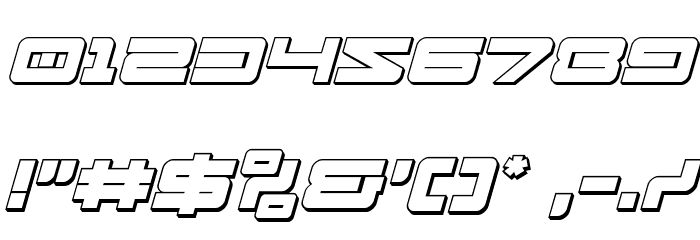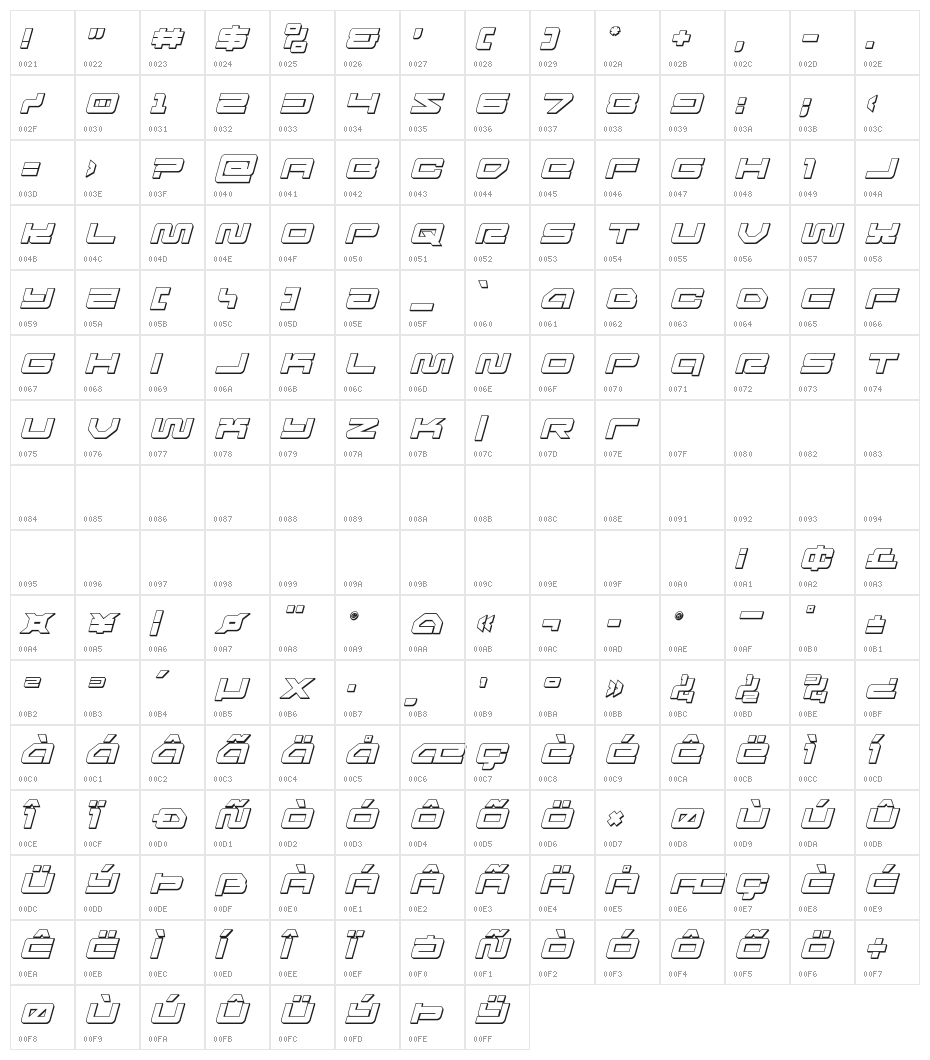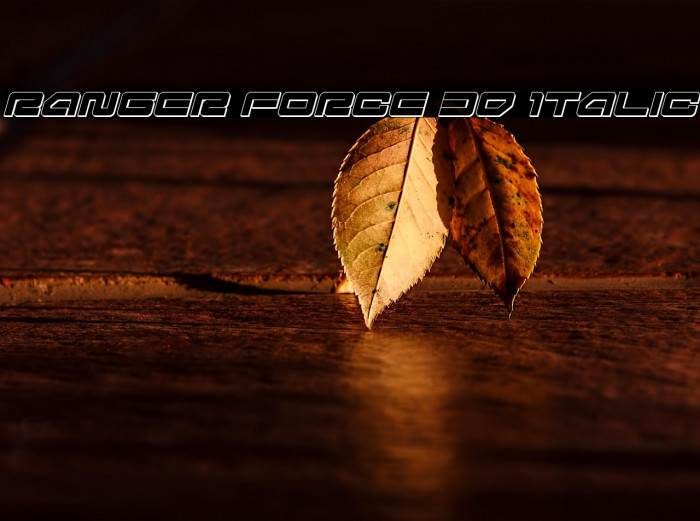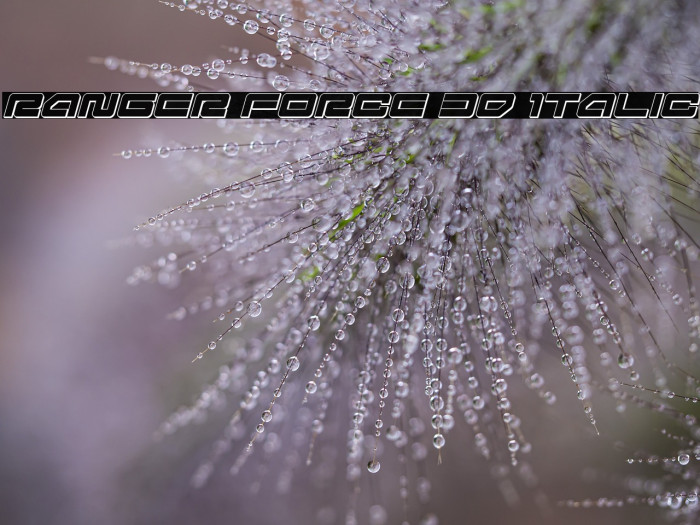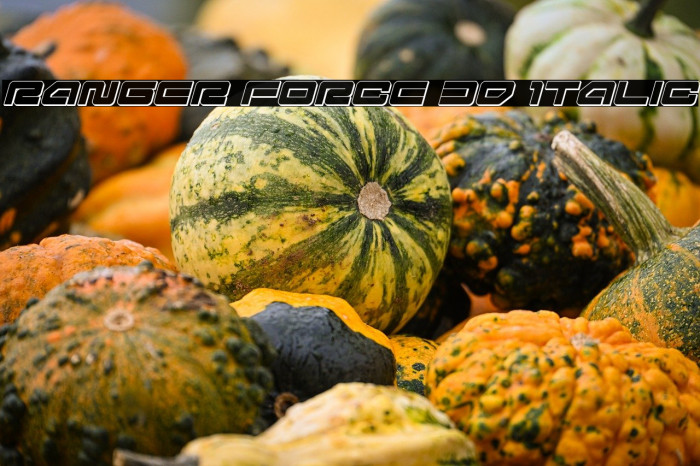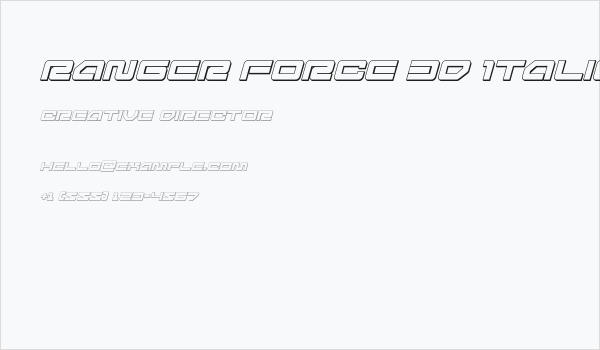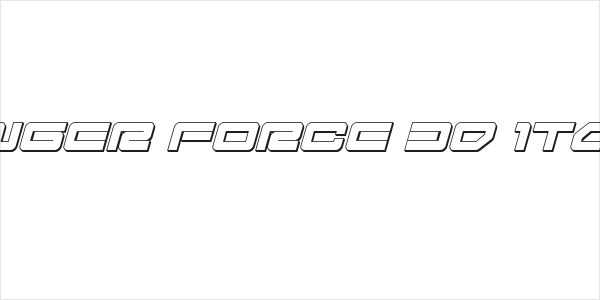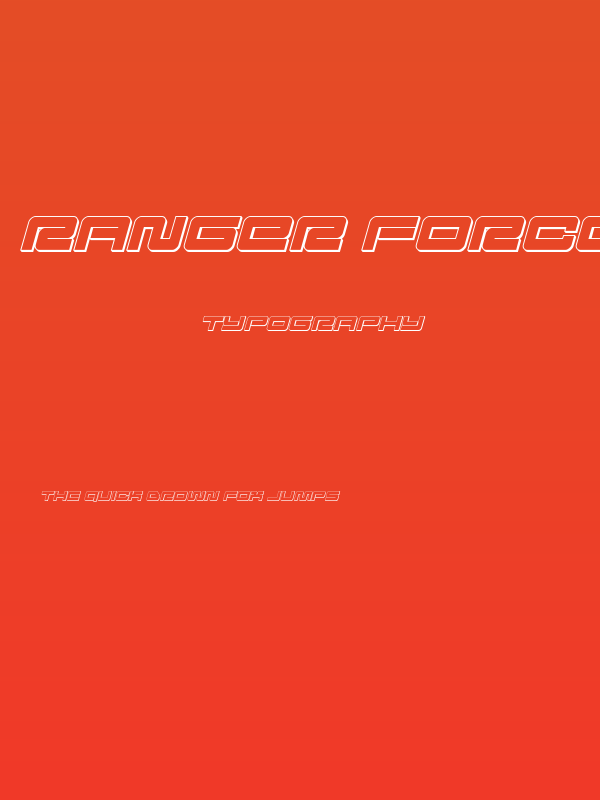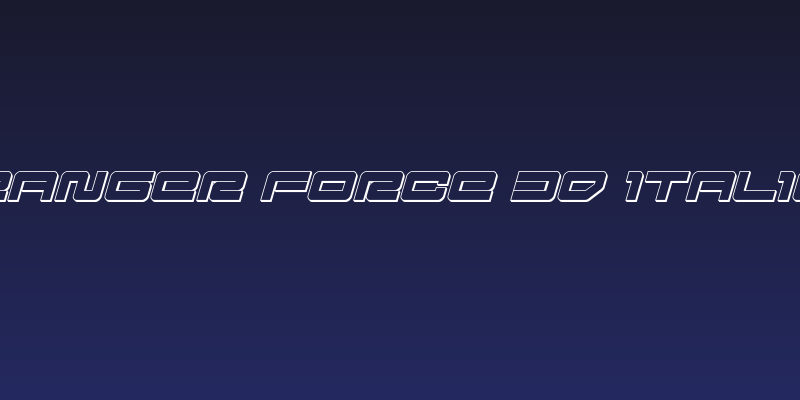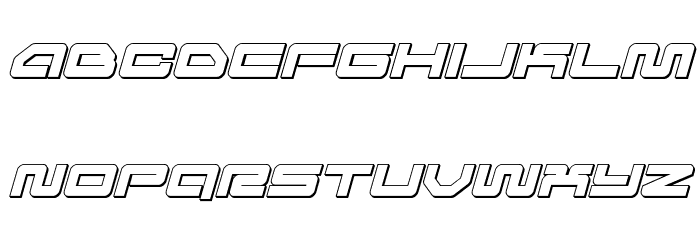
Ranger Force 3D Italic Font
Ranger Force 3D Italic Description
This font features a bold, futuristic design with a 3D effect that gives it a dynamic and modern appearance. The characters are outlined, creating a sense of depth and movement. The italicized style adds a forward-leaning, energetic feel, making it ideal for projects that require a sense of speed or innovation. The geometric shapes and clean lines contribute to its modern aesthetic, while the consistent stroke width maintains readability. This font is particularly suitable for headlines, posters, or any creative work that aims to capture attention with a bold statement.
| Proposed Projects | Ideal for sci-fi posters, gaming titles, tech branding, and dynamic advertisements. |